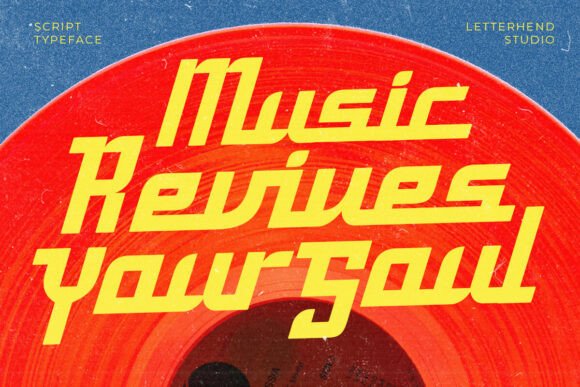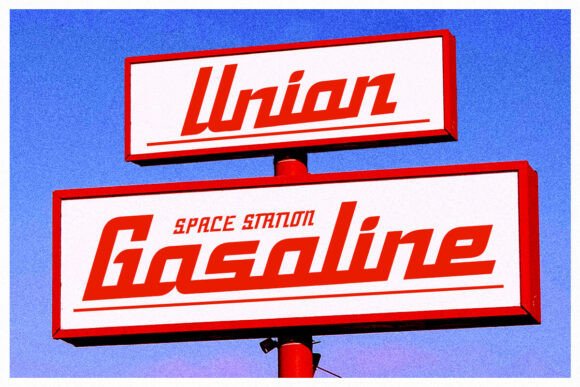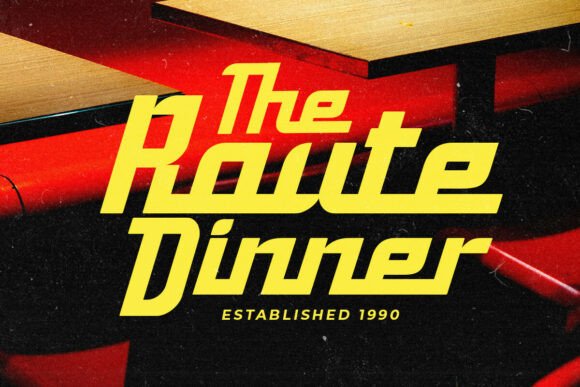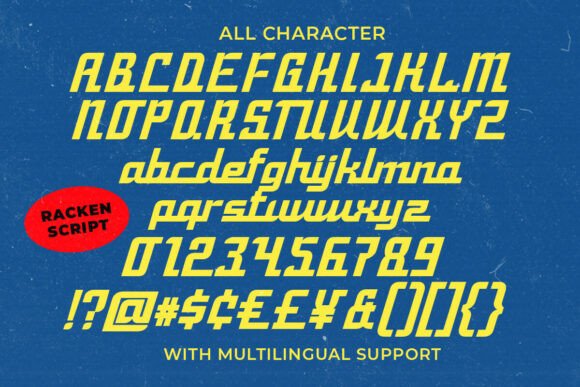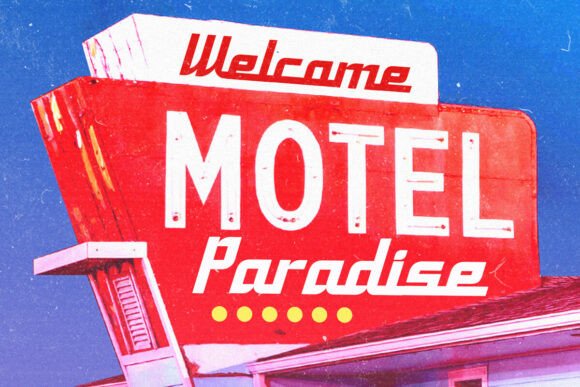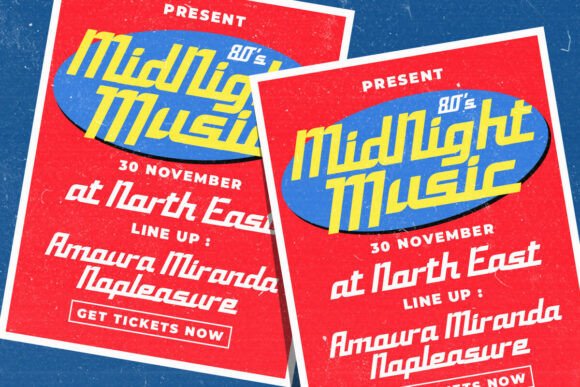
Introduction to Racken Font
Racken is a bold retro display font that captures the thrilling energy of vintage muscle cars and ’80s speed aesthetics.
Racken is a bold and fast-paced retro script display font that brings the thrill of the open road to your designs Inspired by classic American muscle cars and vintage racing posters, Racken roars with energy through its dynamic slanted style, thick strokes, and nostalgic flair.